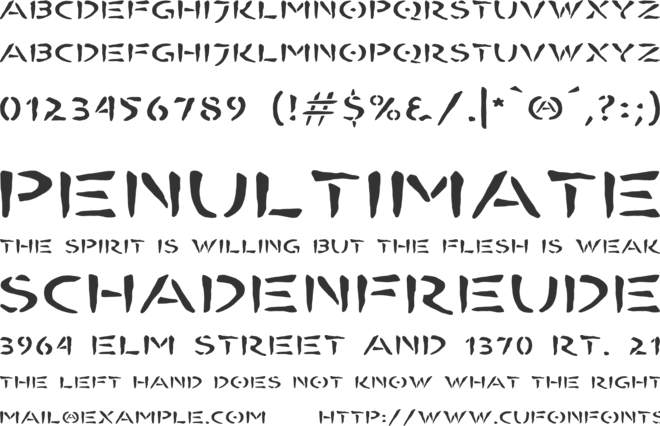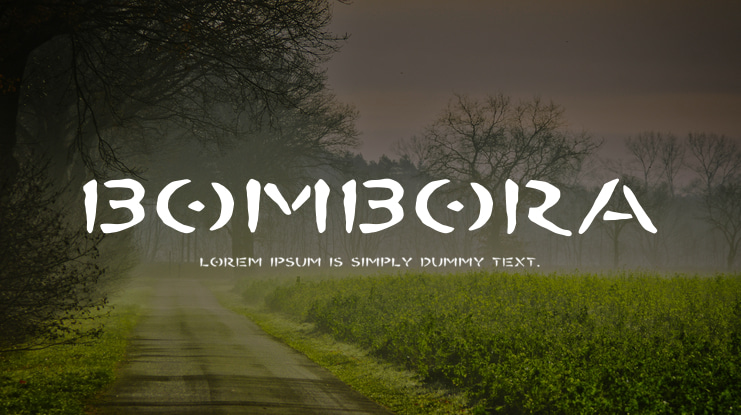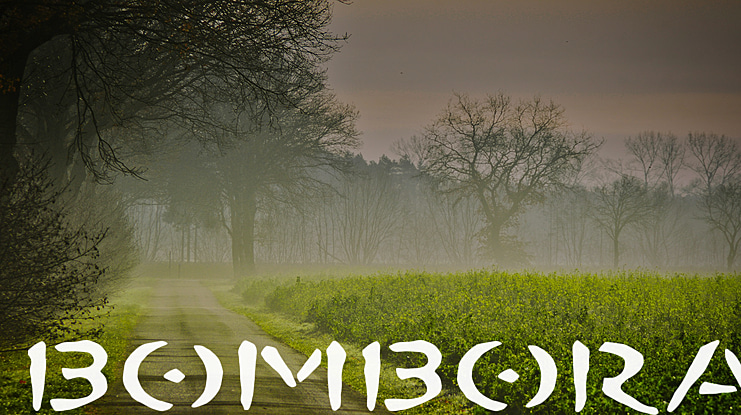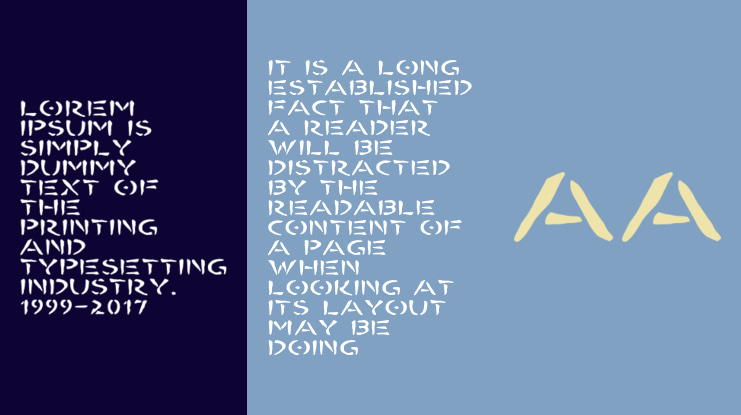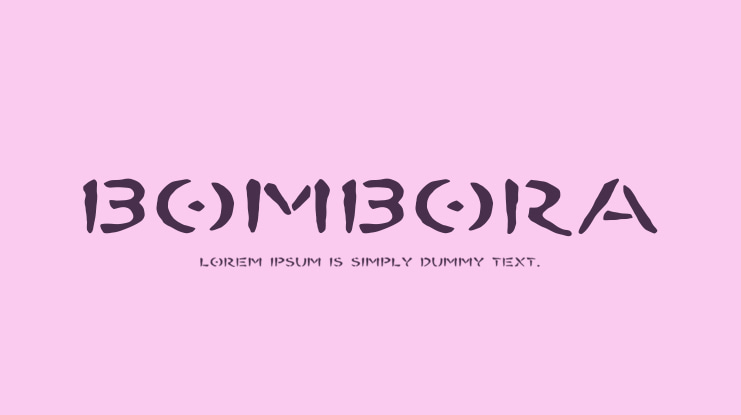
BOMBORA Font
BOMBORA evolved over years of designs in the world of surfing.
The native name is given to massive surf building up over a reef, often dangerous, always spectacular. The font was expertly digitized by Brian Kent in New York. Listen to the great live track BOMBORA by the "Atlantics". http://www.youtube.com/watch?v=-3agVtY4Z6M